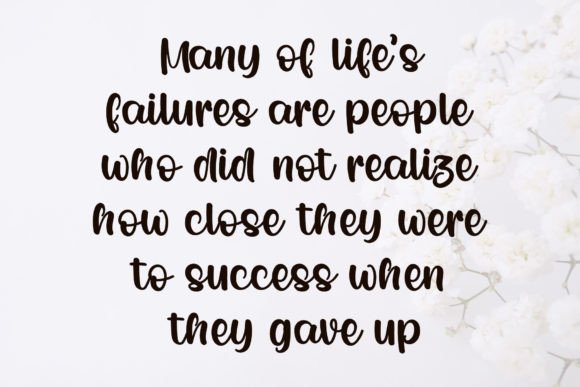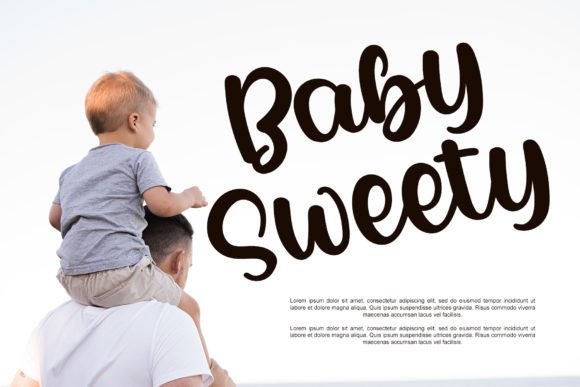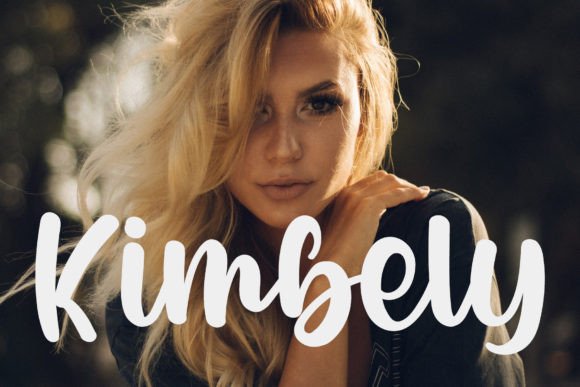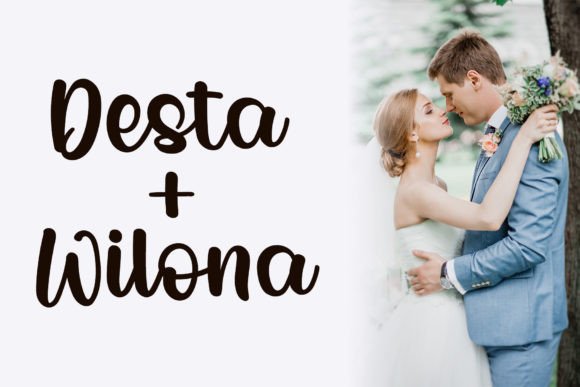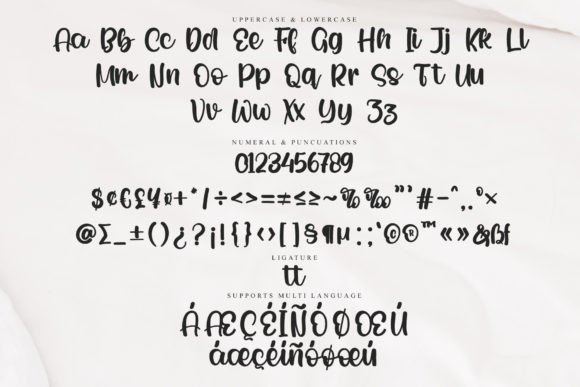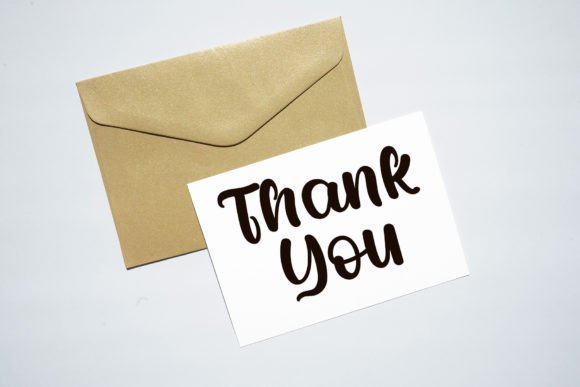
Object Font
Elevate your designs with the Object font, a stylish handwritten script that blends contemporary style with timeless classic calligraphy. This font offers a balanced and varied look, designed to enhance the beauty and professionalism of your projects.
The Object font is perfect for a wide range of creative applications. Whether you are working on branding, logos, headlines, posters, or social media content, this font adds a refined and artistic touch.
Inspired by classic calligraphy, the Object font captures elegance while maintaining modern readability. It suits both casual and formal design projects, giving you versatility in your creative work.
Despite its stylish appearance, the Object font remains clear and readable at various sizes. This makes it ideal for use in both large headlines and smaller text details, adding a cohesive look to your designs.
Using the Object font will help you create polished, professional, and memorable designs. If you seek a handwritten script that combines style with classic elegance, this font is an excellent choice.